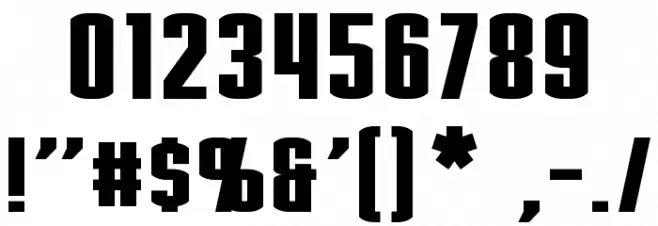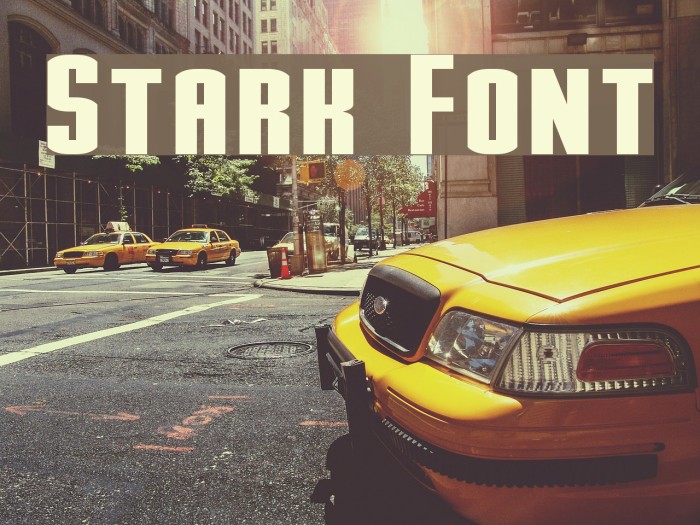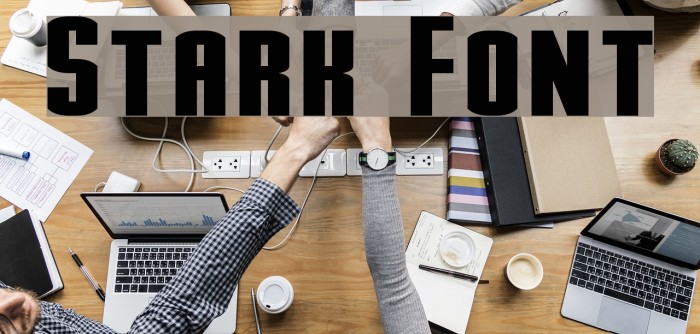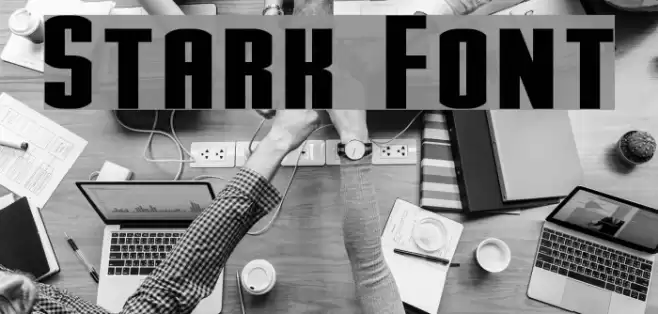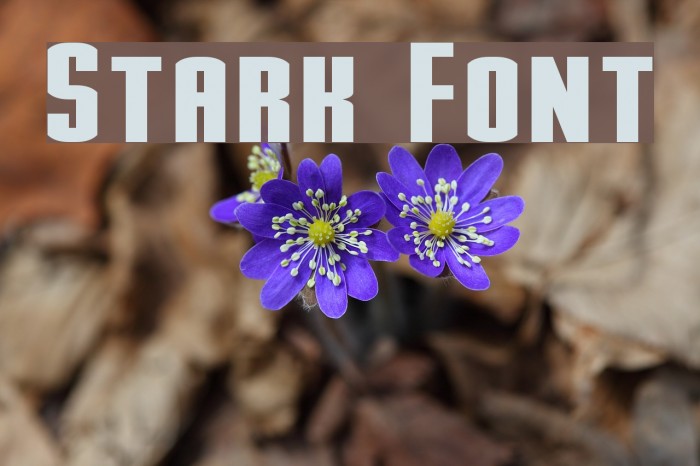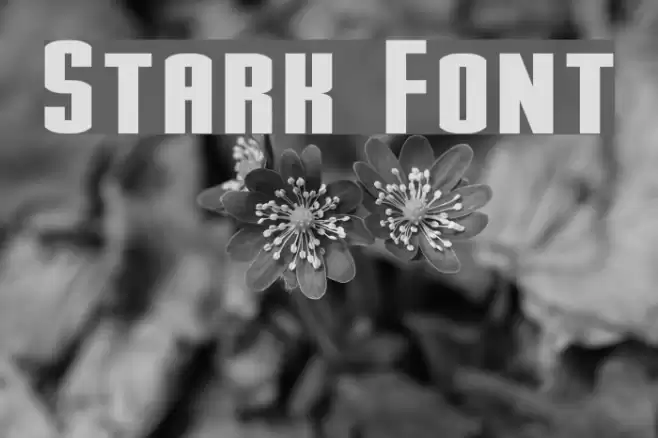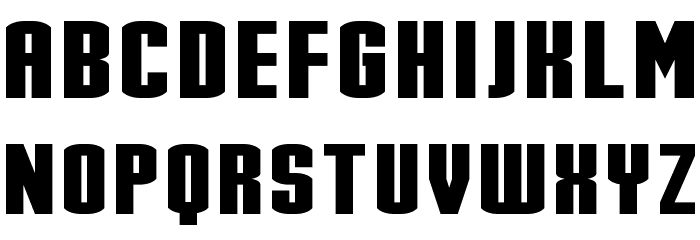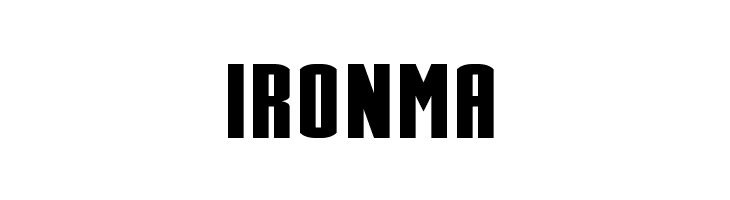
Stark Font
Stark Description
This font features a bold and impactful design, characterized by thick, block-like letters that convey strength and authority. The uppercase and lowercase letters maintain a consistent width, creating a uniform appearance. The numerals are equally robust, ensuring clarity and readability. Special characters are designed with the same boldness, making them stand out effectively. The overall style is modern and assertive, suitable for making a strong visual statement.
| Proposed Projects | Ideal for branding, headlines, posters, and signage where a strong, impactful presence is desired. |